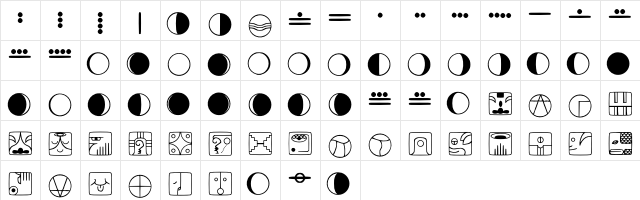
Complete tzolkin Regular glyph index. Displaying only characters natively supported by tzolkin Regular font.
tzolkin is a composed and adaptable typeface that performs quietly and consistently across a wide range of design contexts.